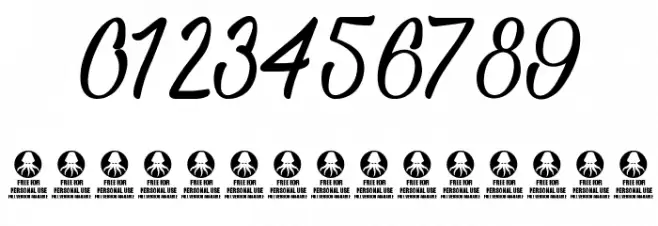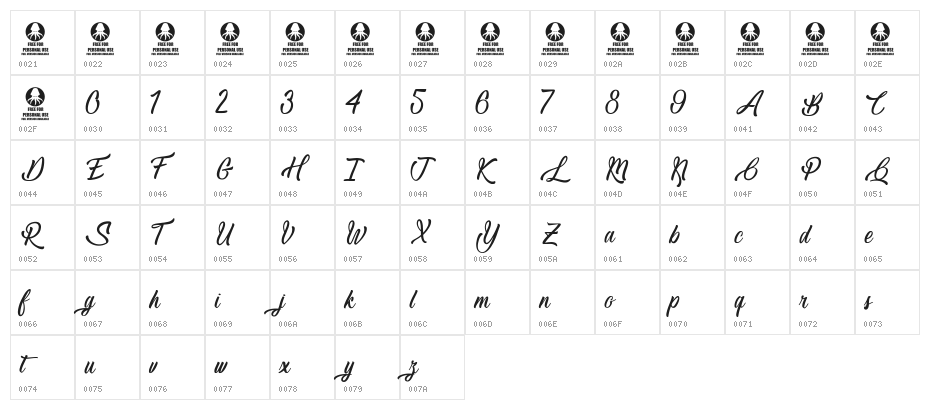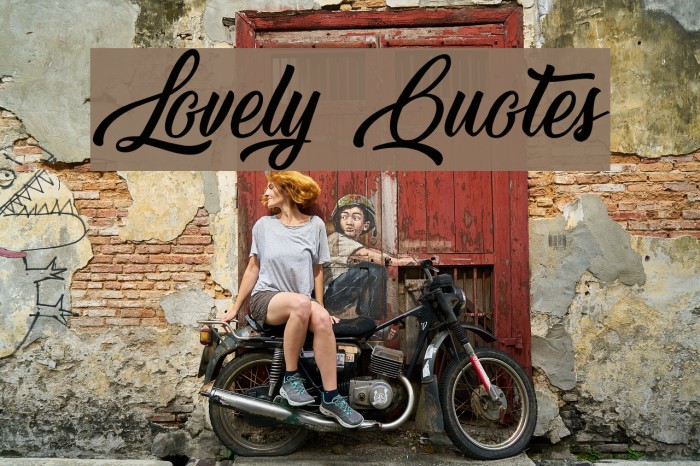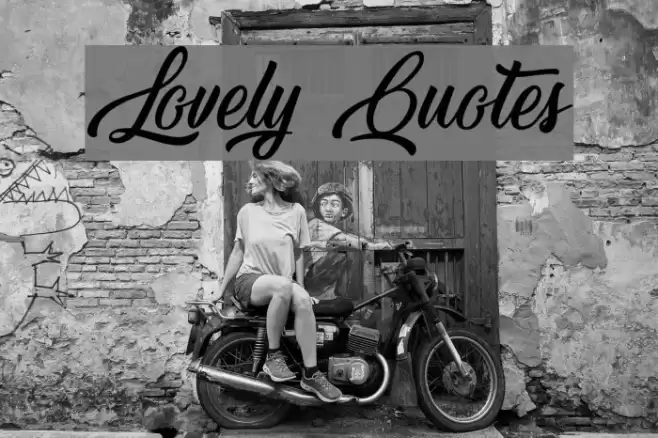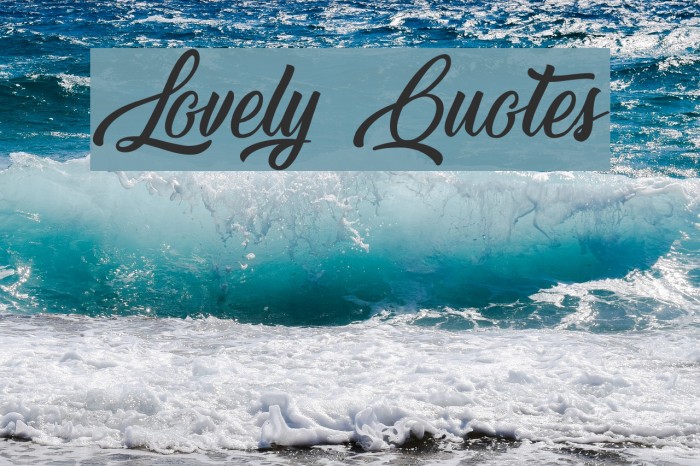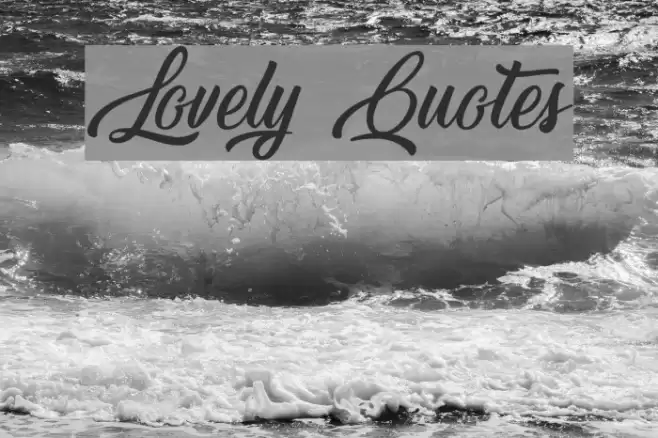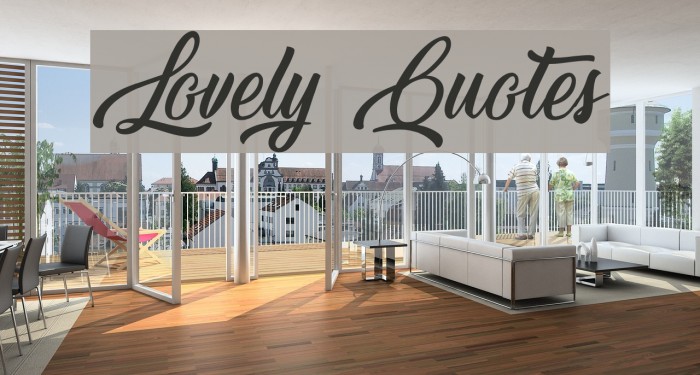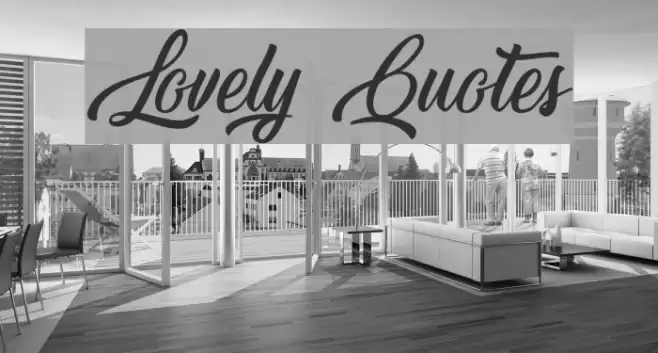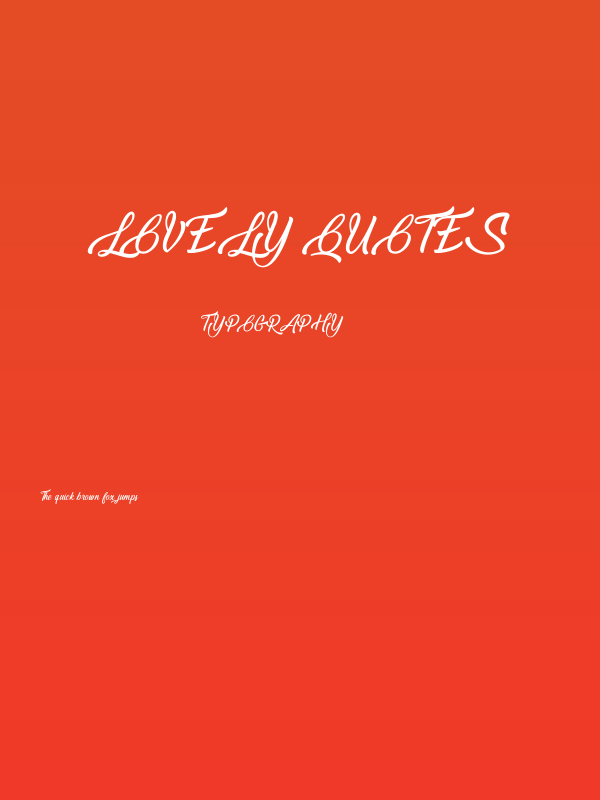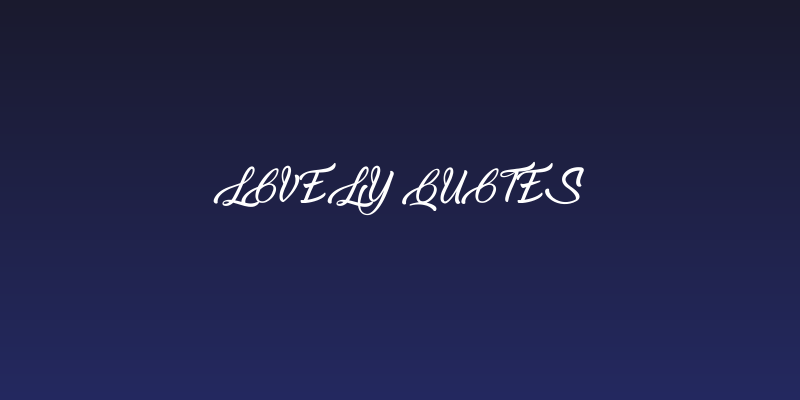
Lovely Quotes Font
Lovely Quotes Description
This elegant script font features a flowing, cursive style with smooth, connected strokes that give it a handwritten appearance. The uppercase letters are bold and sweeping, with dramatic flourishes that add a sense of sophistication and flair. The lowercase letters maintain a consistent flow, enhancing readability while preserving the font's decorative nature. Numbers are styled to match the letters, ensuring a cohesive look across all characters. This font is ideal for projects that require a personal touch, such as invitations, greeting cards, or branding materials. Its stylish curves and loops make it perfect for conveying elegance and charm.
| Use Case | Headlines, Invitations, Logos |
| Proposed Projects | Ideal for wedding invitations, greeting cards, branding, and elegant logos. |